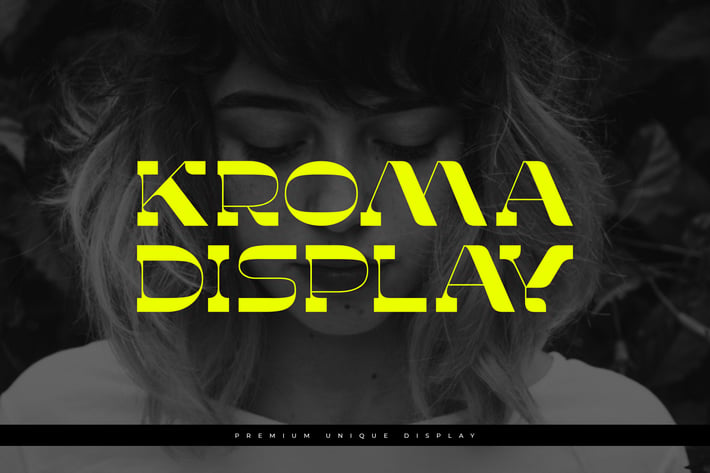
Kroma Modern Display Font
Kroma Display Font Family.
Kroma Display is a versatile display typeface.
Kroma can be used for professional logos, web design, slogans, magazine covers, wedding cards, invitations, and advertising. Type projects and headlines flourish from its highly contrasting contours.
With more than 350 glyphs, Kroma Display offers countless style options.
For any creative project, it is the optimal choice.
- Uppercase glyphs